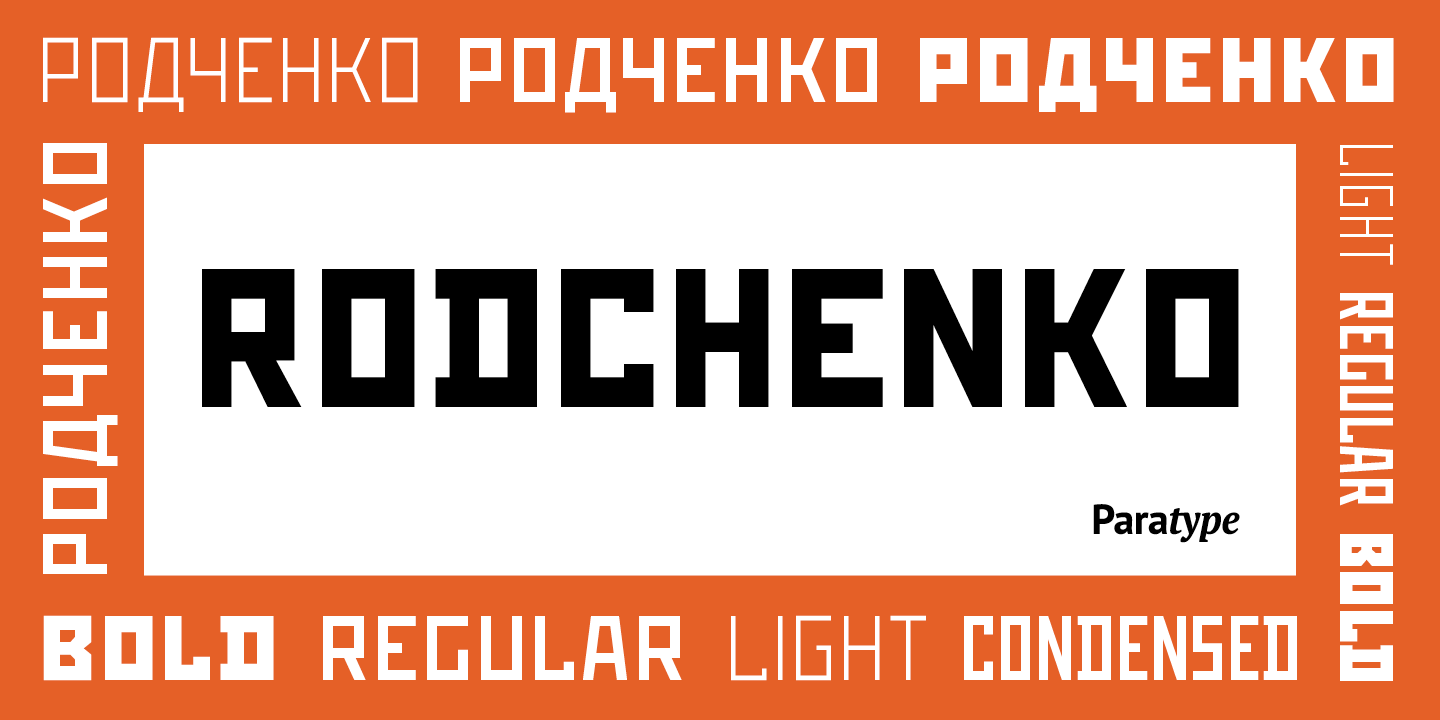
Rodchenko Font is perfect for avant-garde art exhibitions, constructivist design projects, modern architecture presentations, revolutionary poster campaigns, industrial design communications, geometric art installations, progressive cultural events, and bold contemporary museum displays.
What makes Rodchenko Font exciting is its revolutionary artistic spirit that powerfully embodies the radical innovation and geometric precision of Russian Constructivism through typography that breaks conventional boundaries and demands social transformation. The boldly crafted letterforms showcase angular construction with dynamic geometric character that evokes memories of revolutionary manifestos, industrial machinery, and the fearless artistic vision that sought to rebuild society through purposeful design and functional beauty. This extraordinary typeface represents artistic revolution, geometric innovation, and social progress, making it the perfect choice for cultural institutions and progressive brands that challenge established norms and want typography that reflects their commitment to artistic innovation and societal advancement.
The Rodchenko Font family includes multiple weights with condensed variants for maximum constructivist impact. The comprehensive character set features uppercase and lowercase letters, geometric numerals, revolutionary symbols, and avant-garde punctuation marks that enhance the bold constructivist aesthetic across all artistic and cultural design applications.
Cultural institutions and progressive designers seeking Rodchenko Font Free Download will discover exceptional opportunities for creating provocative, artistically revolutionary communications. This remarkable typeface transforms standard cultural text into compelling geometric manifestos that immediately communicate artistic authority, revolutionary thinking, and avant-garde sophistication. Whether you're designing contemporary art museum exhibitions, creating progressive cultural festival materials, developing architectural firm branding, or crafting experimental design projects, this font delivers outstanding results that honor constructivist tradition while inspiring audiences to embrace bold artistic vision and the transformative power of geometric design principles applied to modern cultural expression.
The geometrically engineered letter spacing and constructivist proportions make Rodchenko Font remarkably effective across both intimate gallery applications and large-scale revolutionary display uses. Its avant-garde character ensures maximum artistic impact while maintaining excellent readability for contemporary cultural communication needs. From museum wall texts to architectural competition presentations, this font consistently delivers the revolutionary gravitas that defines serious artistic and cultural innovation.